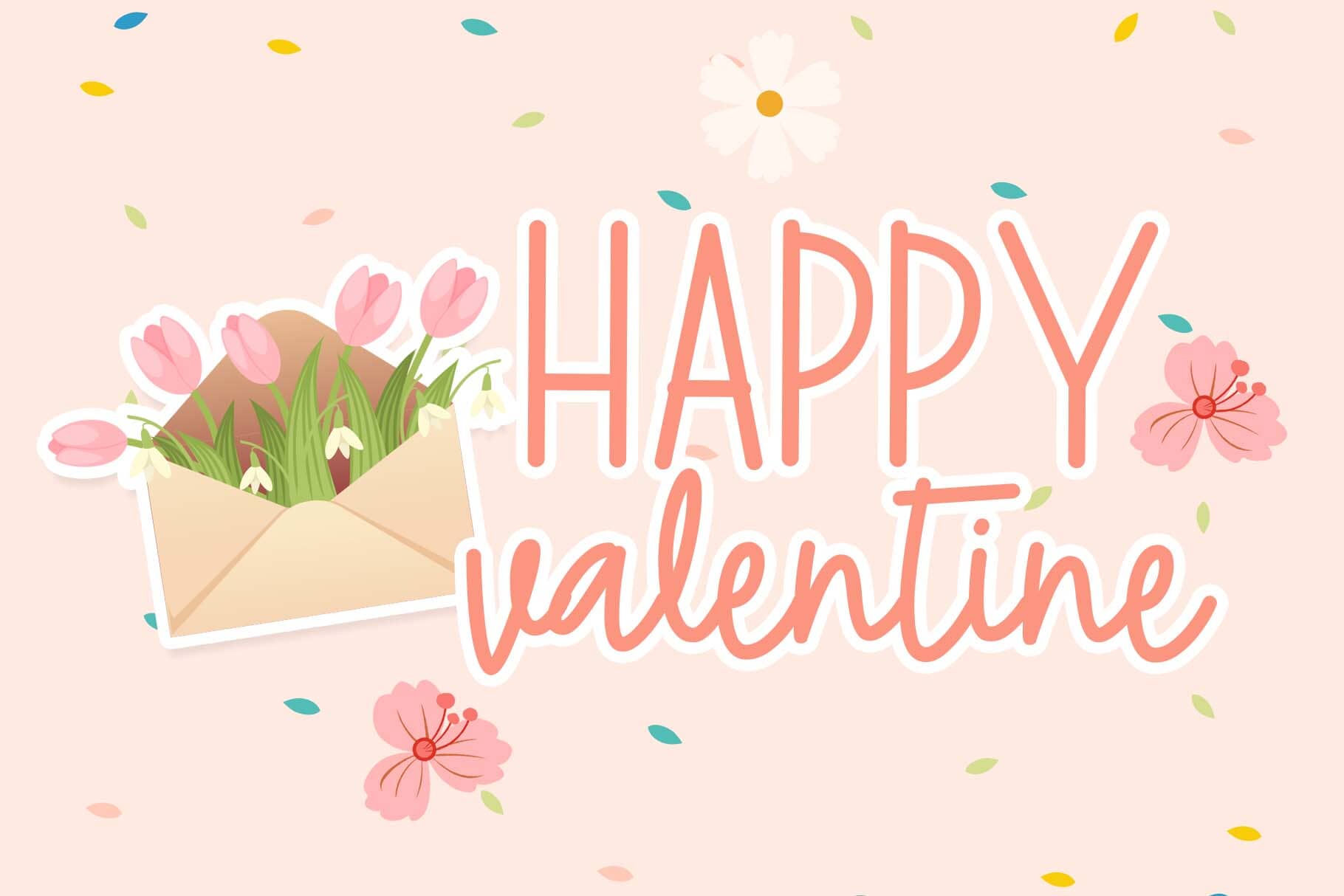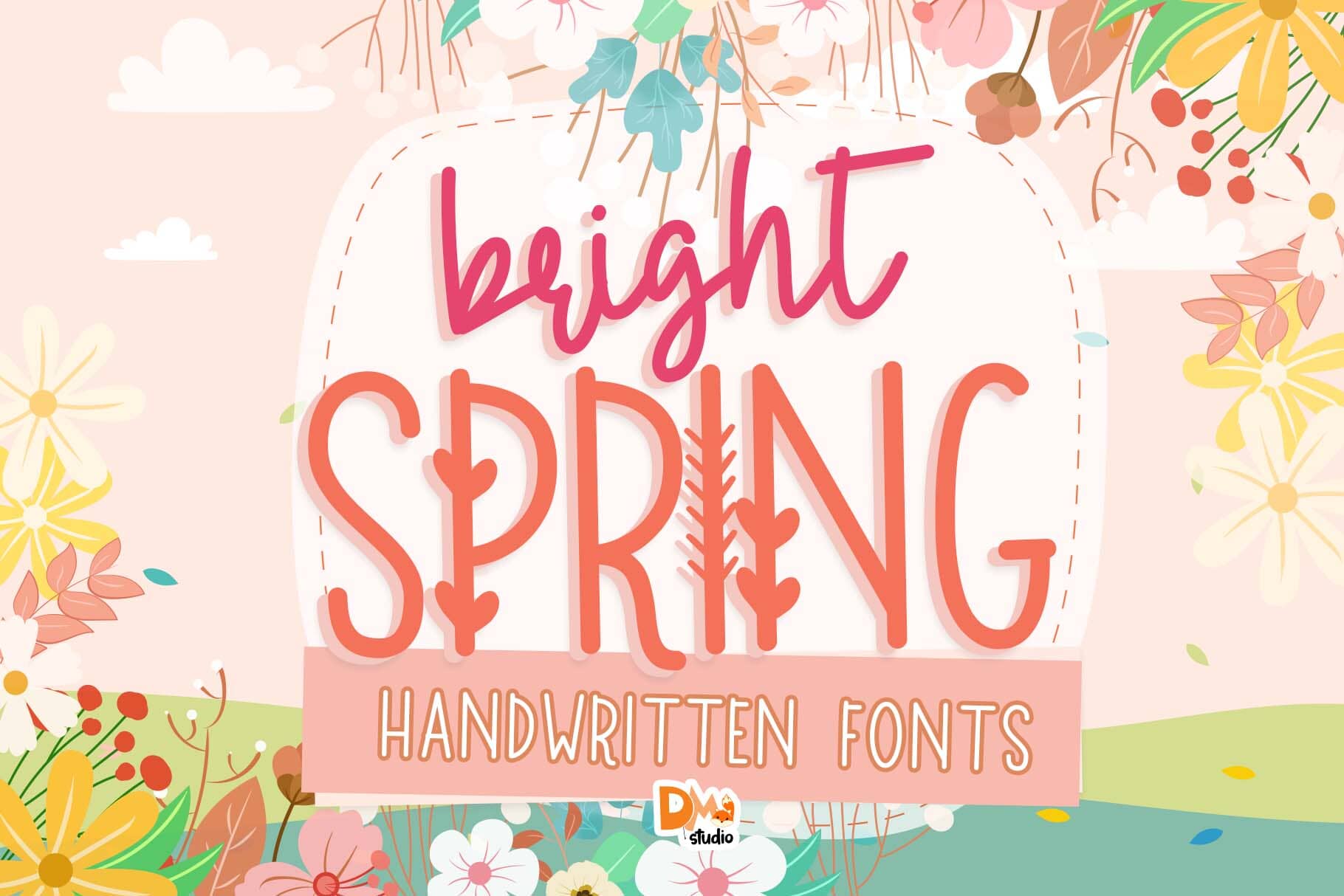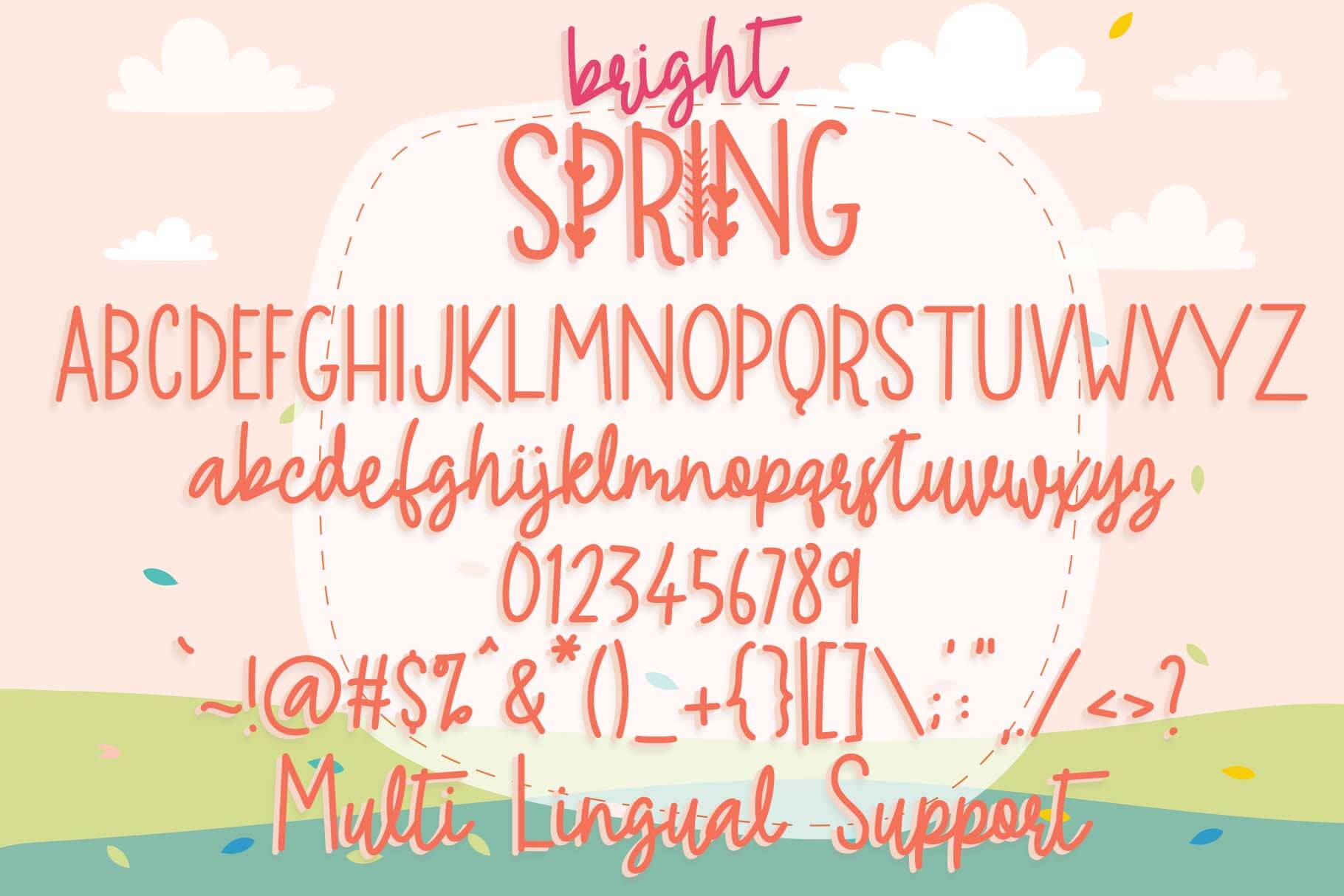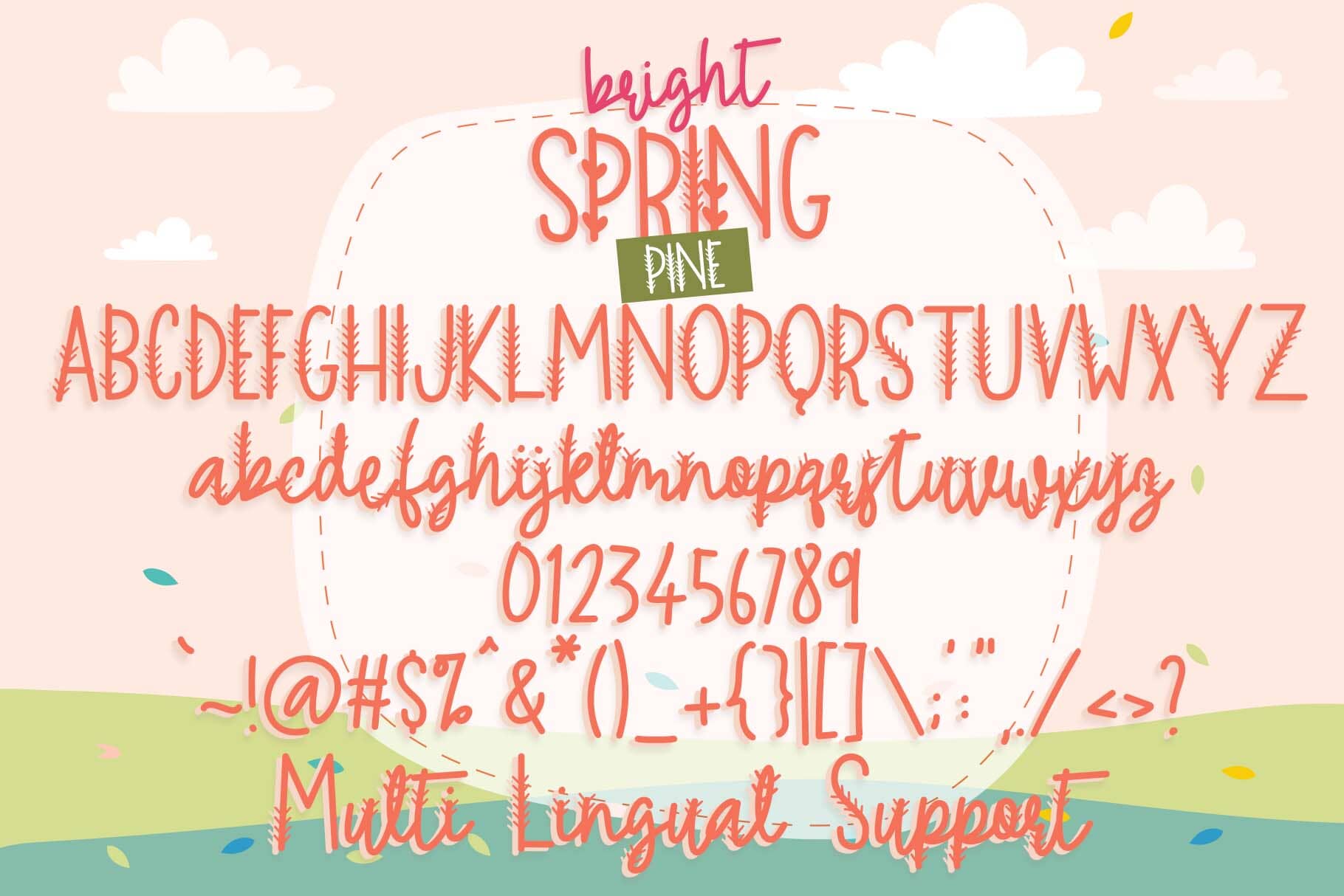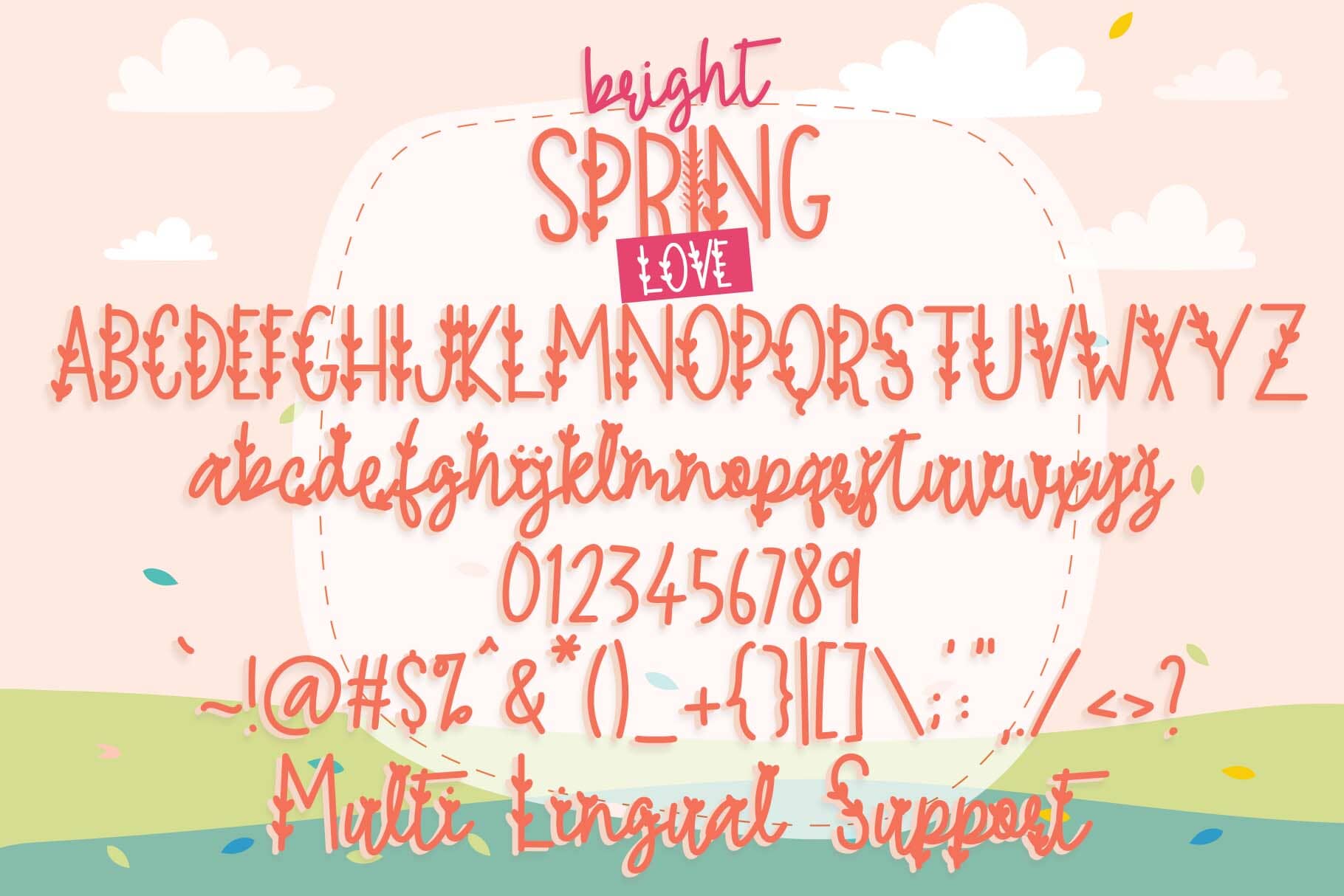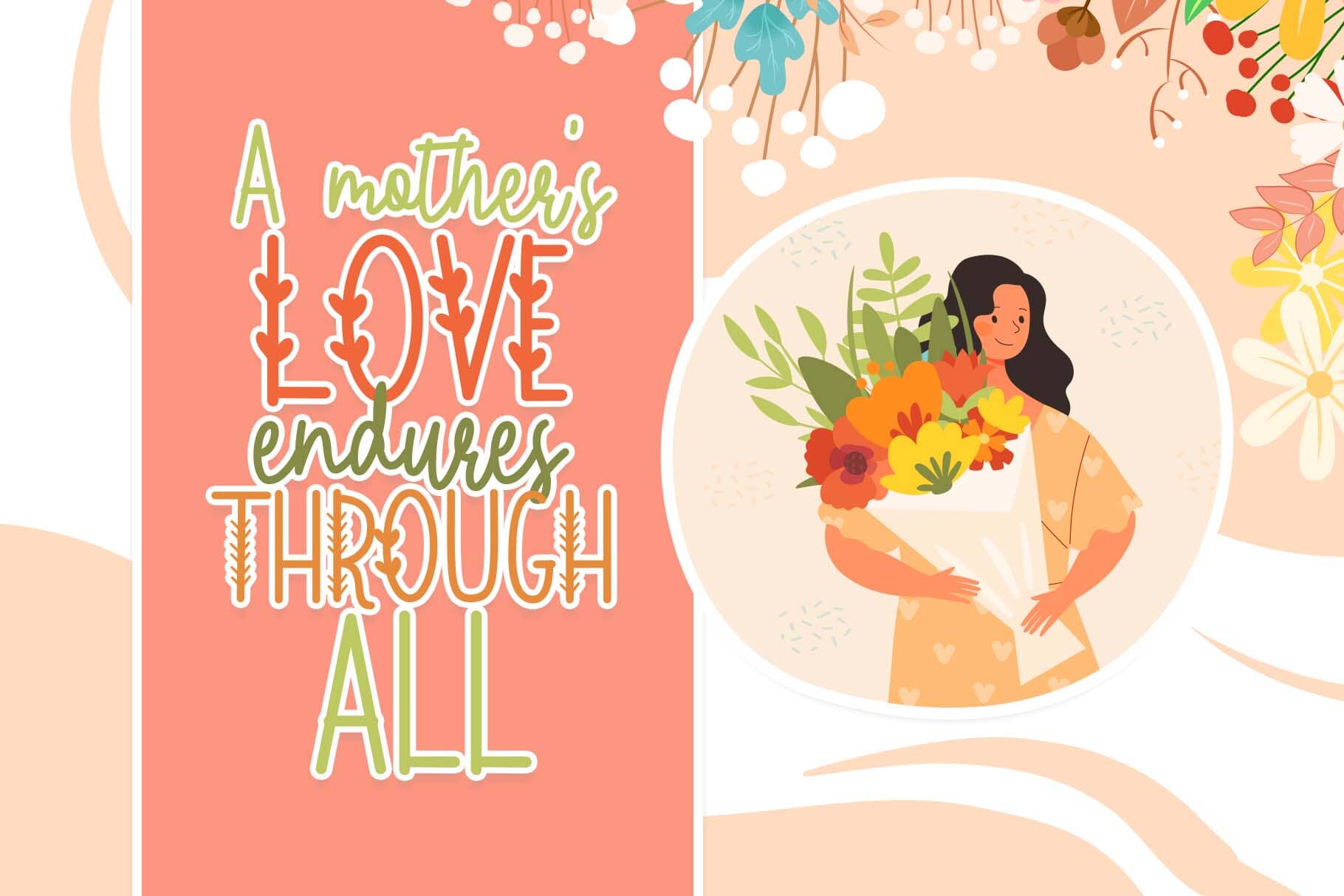
Bright Spring
Bright Spring Font: Transform Your Designs with This Vibrant Typography
Introducing the Bright Spring Font Collection
The Bright Spring font brings the refreshing energy and vibrant spirit of springtime to your creative projects. This versatile and modern bright Spring font features clean lines and dynamic curves, making it perfect for designers seeking to add a seasonal touch to their work. With its balanced letterforms and excellent readability, this bright Spring font collection will elevate your designs across all platforms.
Why the Bright Spring Font Stands Out
• Modern Letterforms: The bright Spring font includes balanced design suitable for both digital and print applications
• Springtime Inspiration: Captures the essence of spring’s vibrant energy in every character
• Versatile Styling: Adaptable to multiple design needs with consistent bright Spring font aesthetics
Perfect Applications for the Bright Spring Font
This bright Spring font excels in numerous creative contexts:
• Invitations and Greeting Cards: Create stunning spring-themed celebrations with a distinctive typographic touch
• Branding Projects: Develop fresh, modern brand identities that communicate warmth and energy
• Social Media Graphics: Design eye-catching, legible posts and stories that capture attention instantly
• Printed Materials: Craft vibrant brochures, posters, and banners with professional-quality typography
• Website Headers: Make your digital presence bloom with distinctive bright Spring font headings
Transform Your Creative Projects with Bright Spring Font
Bring a burst of creativity and seasonal freshness to your designs with the Bright Spring font. Its clean, dynamic character designs will elevate your visual communication, adding a touch of springtime vibrancy to every application. Whether you’re creating digital content or print materials, this bright Spring font delivers professional results with distinctive personality.